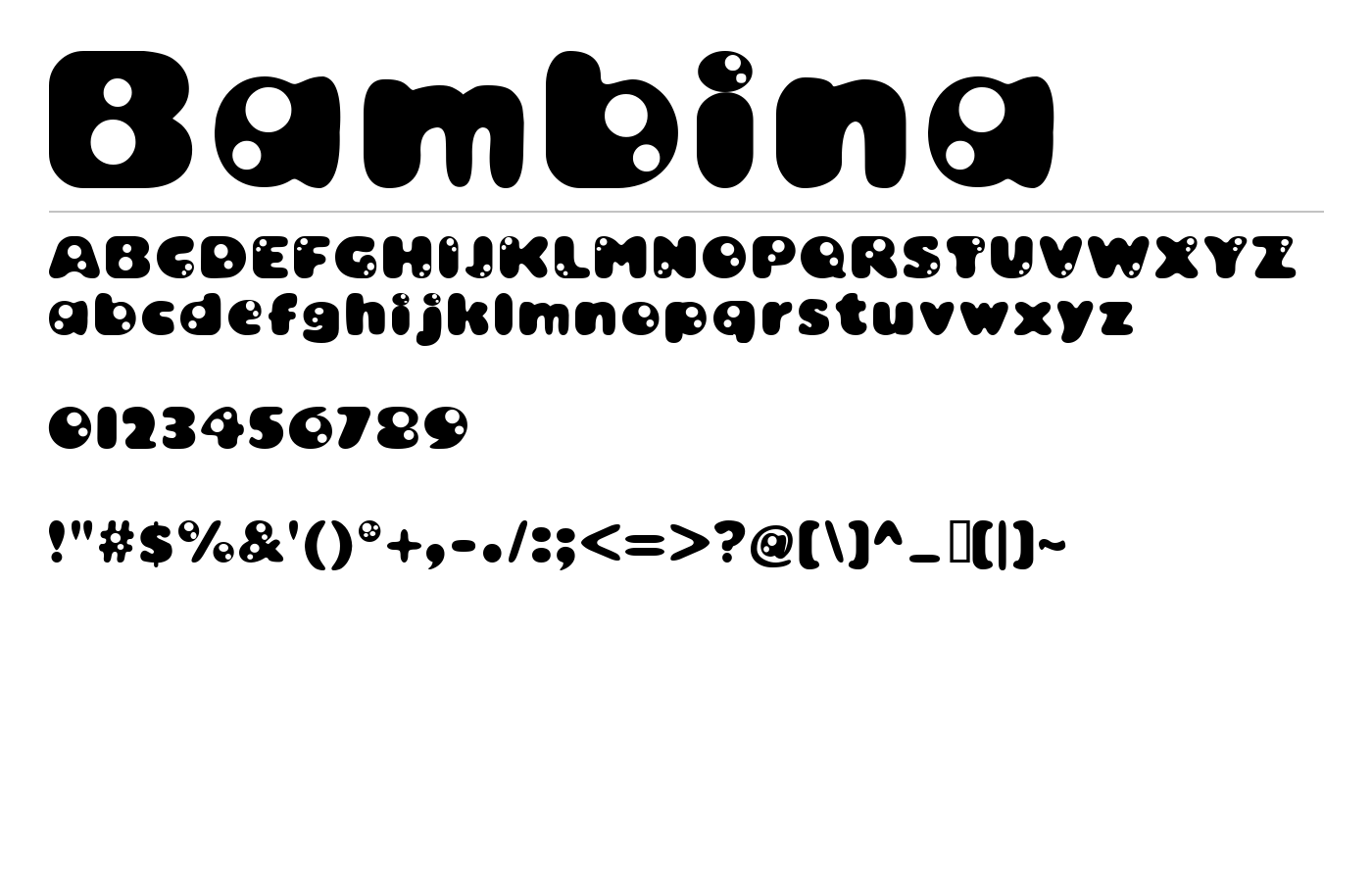
Bambina is a bold, playful sans serif font with rounded, chunky letterforms and distinctive bubble-like details inside many characters, giving it a fun and whimsical personality. Its heavy weight, wide proportions, and high x-height make it highly visible and ideal for creating eye-catching headlines or branding that appeals to younger audiences or projects with a lighthearted vibe. This font works best in creative and informal contexts such as children's products, party invitations, or quirky logos where a sense of joy and friendliness is desired.
Bambina Font